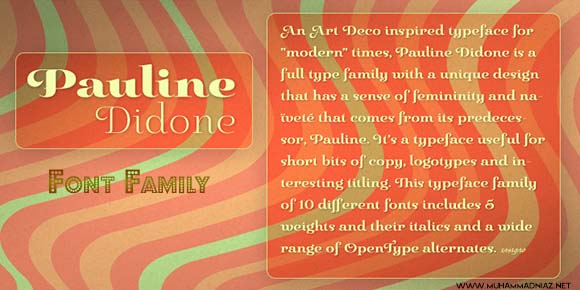
Pauline Didone is a full type family with a unique and flavorful design. It has a sense of femininity and naïveté that comes from its predecessor, Pauline. It’s a typeface useful for short bits of copy, logotypes and interesting titling. This typeface family of 10 different fonts includes 5 weights and their italics and a wide range of OpenType alternates.
The typeface family also includes a full array of alternate forms, including over 150 alternate characters. These alternates can be accessed by activating OpenType features and style sets.
Pauline Didone is the latest in a trusted line of typefaces from insigne. Why settle for the ordinary when you can choose Pauline Didone to lend its unique look to your art work?